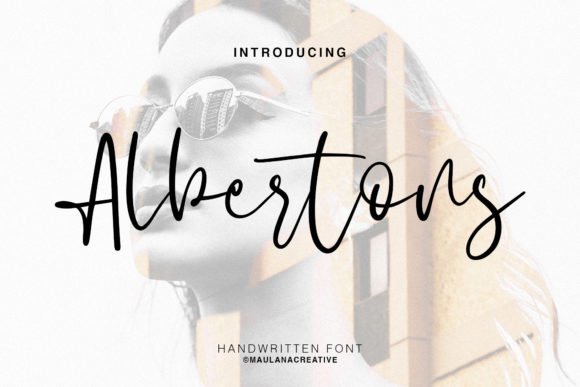
Unleash Your Creativity with Albertons Script Font
Remember that moment when you’re brainstorming a new project and the perfect font pops into your mind? For many designers, that moment is a game-changer. It’s the spark that sets the entire creative process ablaze. For those who’ve experienced this magic, you know how crucial the right font can be in bringing your vision to life.
Enter Albertons Script Font, a delightful addition to any designer’s toolkit. This charming font is specifically crafted for those who love a bouncy baseline and smooth curves. Whether you’re working on a personal project or collaborating with a team, Albertons Script Font is the perfect companion to help you create something truly special.
As a valuable asset for designers, Albertons Script Font offers endless possibilities for crafting unique and captivating designs. Its versatility makes it an ideal choice for various projects, from invitations and posters to social media graphics and more.
Albertons Script Font Key Features
- Font Family: Albertons Script
- Unique Characteristics: Handwritten and cursive script font with a personal touch, ideal for creative and artistic projects
Albertons Script Font Review
Albertons Script Font is a beautiful and elegant script font that can add a touch of sophistication to any design project. ✨ Its flowing lines and fluid connections between letters make it perfect for creating a sense of luxury and high-end feel.
One of the standout features of Albertons Script Font is its versatility. It can be used for a wide range of applications, from wedding invitations to high-end branding materials. ✨ The font also comes in multiple weights and styles, making it easy to customize and match with other design elements.
- ⚠️ Limited character set: Albertons Script Font only comes with a limited character set, which may not be suitable for projects that require a wide range of special characters or accents.
- ⚠️ Not ideal for small text: The font is best used for larger text sizes, as the script style can become difficult to read when scaled down.
Overall, I would give Albertons Script Font 4 out of 5 stars. While it has some limitations, its beauty and versatility make it a great choice for designers who want to add a touch of elegance to their projects. With a little creativity and experimentation, this font can be used to create truly stunning designs.
Albertons Script Font is ideal for creating elegant and sophisticated designs, such as:
– Branding and logo design
– Gift tags and labels
– Magazine and book covers
– Social media graphics and advertising
Alternatives to Albertons Script Font
Carolyna Pro is a modern script font designed for contemporary branding and design projects. It features elegant, flowing lines and a high-end feel. Use Carolyna Pro for high-end fashion, luxury brands, or any project that requires sophistication and refinement.
Carolyna Pro compares to Albertons Script Font in terms of elegance and sophistication, but it has a more modern and sleek feel. While Albertons Script Font is more vintage-inspired, Carolyna Pro is ideal for cutting-edge designs.
Alex Brush is a script font designed to evoke a sense of elegance and sophistication. It features flowing lines, subtle flair, and a touch of whimsy. Use Alex Brush for designs that require a sense of luxury, refinement, and playfulness.
Alex Brush shares a similar elegance with Albertons Script Font, but it has a more subtle and understated feel. While Albertons Script Font is more dramatic and ornate, Alex Brush is ideal for designs that require a touch of subtlety.